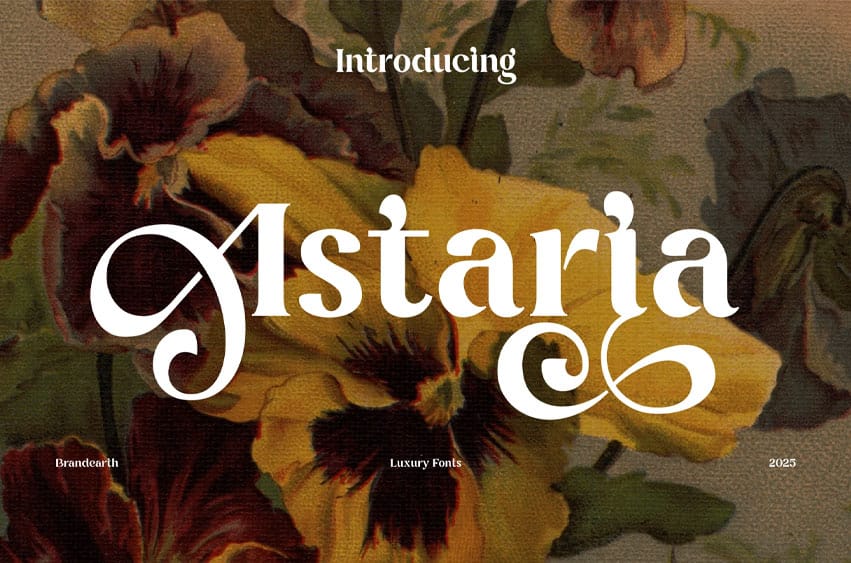
Astaria Font is a vintage-inspired luxury serif font that blends elegance with expressive charm. Defined by its bold letterforms, ornamental swashes, and exquisite ligatures, Astaria evokes the beauty of classic typography with a romantic twist. Its refined curves and decorative strokes make it the perfect choice for designers seeking a touch of poetic sophistication. From boutique branding to wedding stationery, Astaria delivers a graceful impact with both flair and structure. Complete with a full set of upper/lowercase characters, punctuation, and rich ligature options, it brings life and personality to every layout.\
Relevance and Use Cases Astaria is perfect for vintage serif typography, ornamental branding, and romantic design aesthetics. It fits beautifully into floral-themed packaging, boutique logos, wedding invitations, poetic posters, and luxury editorial layouts. With its expressive ligatures and elegant swashes, Astaria can be used in perfume branding, antique-style signage, slow fashion lookbooks, and artisanal product labels. Its blend of softness and drama makes it ideal for projects that require a timeless, graceful, and artistic voice.